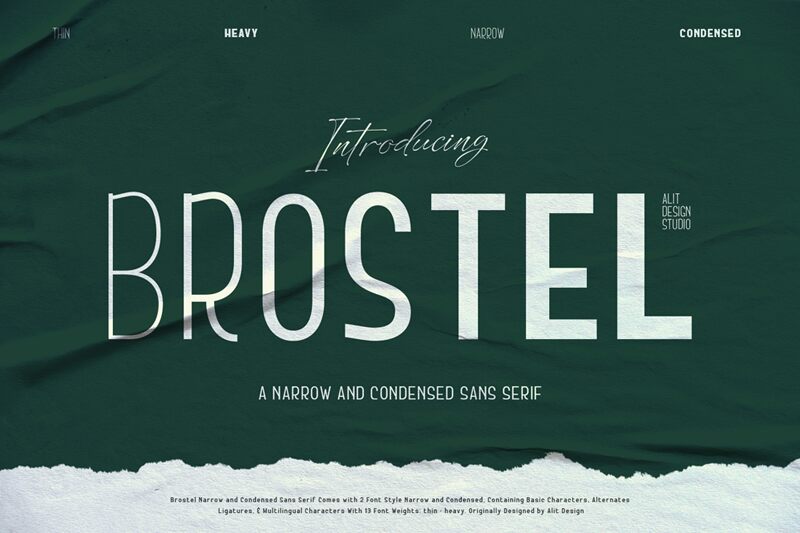
Brostel Medium
Brostel font was designed by Alit Design. Bold and elegant with minimalistic, simple styling and gently flowing rhythms, this modern sans offers a masterclass in condensed, high contrast letterforms that still offer a geometric aesthetic while putting warmth on the page. Clean lines give the typeface an efficient edge, while balanced proportions make for letters that appear articulate no matter how they’re used.
From vehicles to logotypes to gaming devices and beyond, Brostel is created for use in all professional modern interfaces where type has to meet technicality with sleek style. It’d look equally dapper on portfolios or flyers. Pro designers will also appreciate this one’s print potential—design elements crafted from letters set in Brostel are marks of exquisitely readable class. Highly recommended for minimalist content!